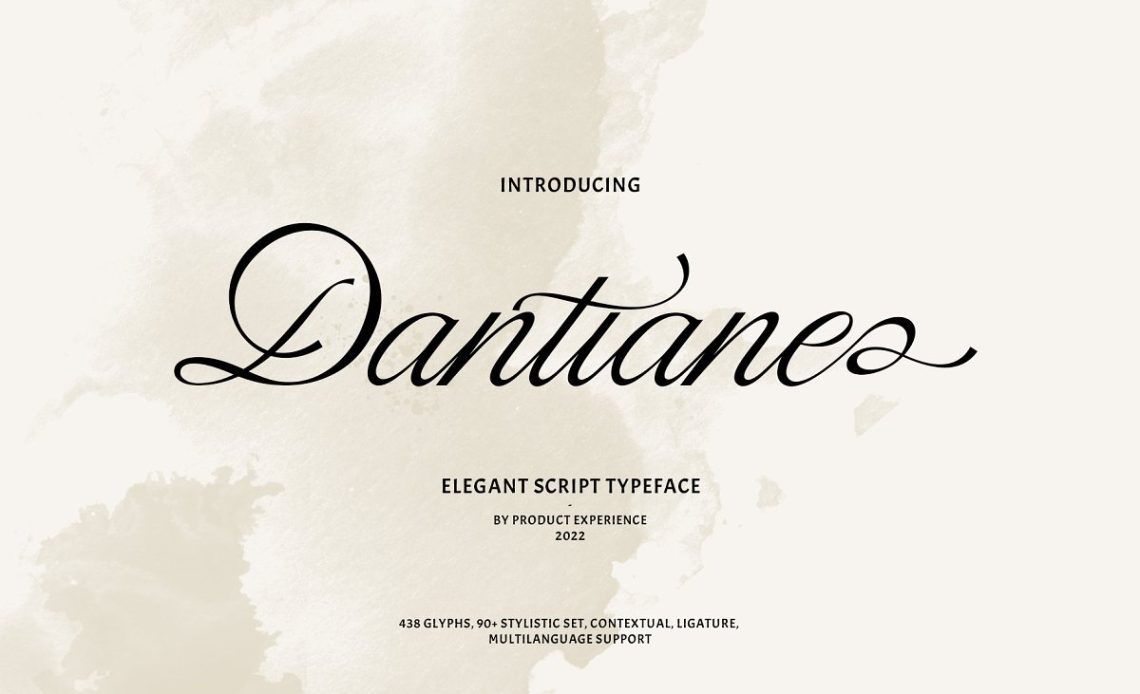
Welcome to Dantiane, the best font for branding your business! With its classic elegance and script typeface, Dantiane is the perfect choice for all your design needs, whether it's a wedding invitation, logo design, social media graphics, book covers, or magazine layouts. This font was created by Product Experience, a leading name in the font industry, and is equipped with various opentype features that make it stand out from the rest.
One of the key features of Dantiane is its 90+ stylistic sets, which offer a wide selection of glyphs and characters to choose from. This means that you can create unique and eye-catching designs that truly represent your brand. The font also has Contextual Alternatives and Ligatures, which give it a professional and polished look. In addition, Dantiane supports multiple languages, making it a versatile choice for global businesses.
With a total glyph count of 438, Dantiane includes uppercase and lowercase letters, as well as punctuation, marks, and symbols. It comes in three file types - .otf, .ttf, and .woff - so you can easily use it across different platforms and software. To access the stylistic set, simply use the glyph panel feature in Adobe Photoshop or Illustrator.
Overall, Dantiane is the ultimate font for businesses looking to elevate their branding game. Its elegant script typeface, opentype features, and multi-language support make it a valuable asset for any designer. So why settle for boring and generic fonts when you can choose Dantiane and make your brand stand out from the crowd? Download it today and see the difference for yourself!